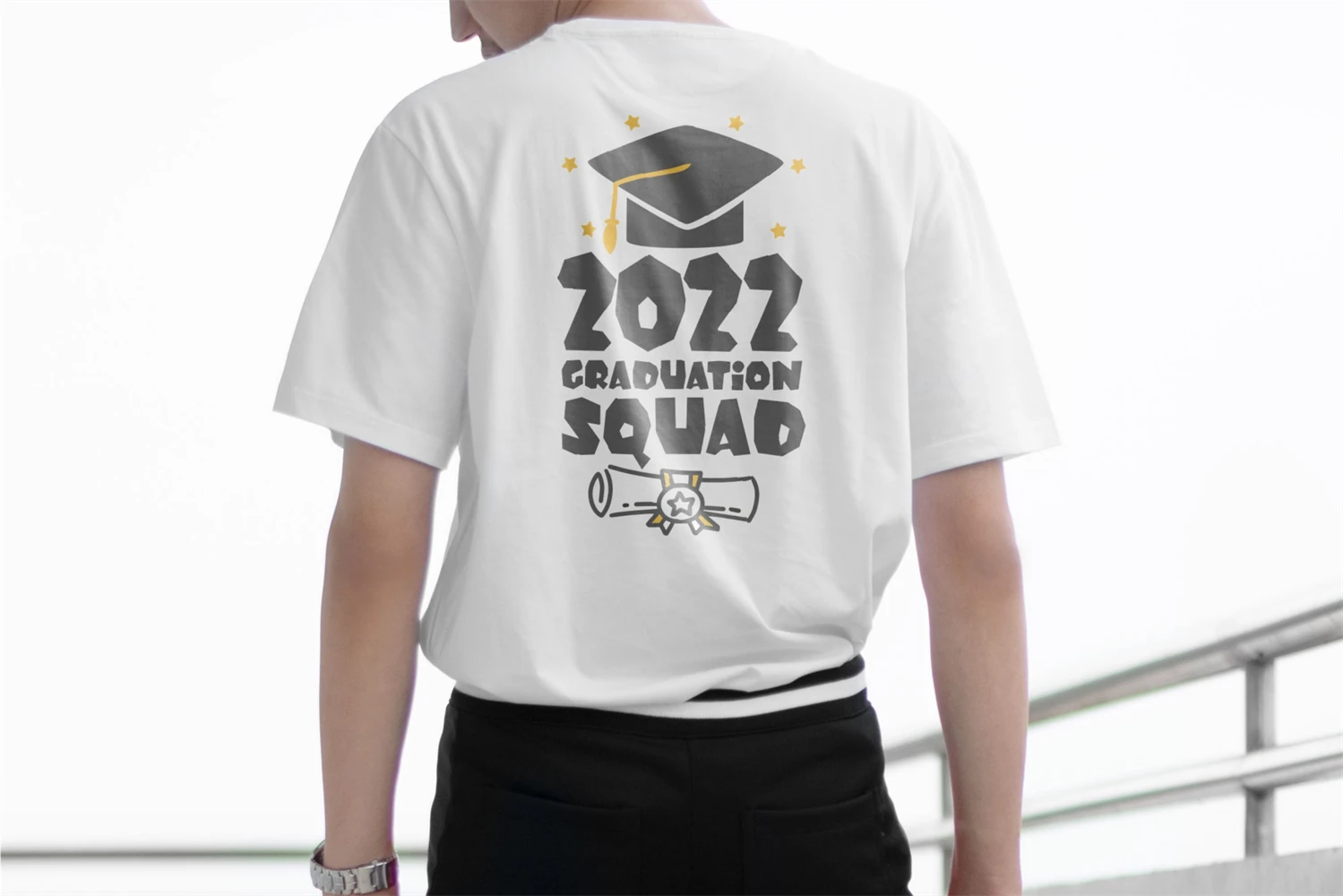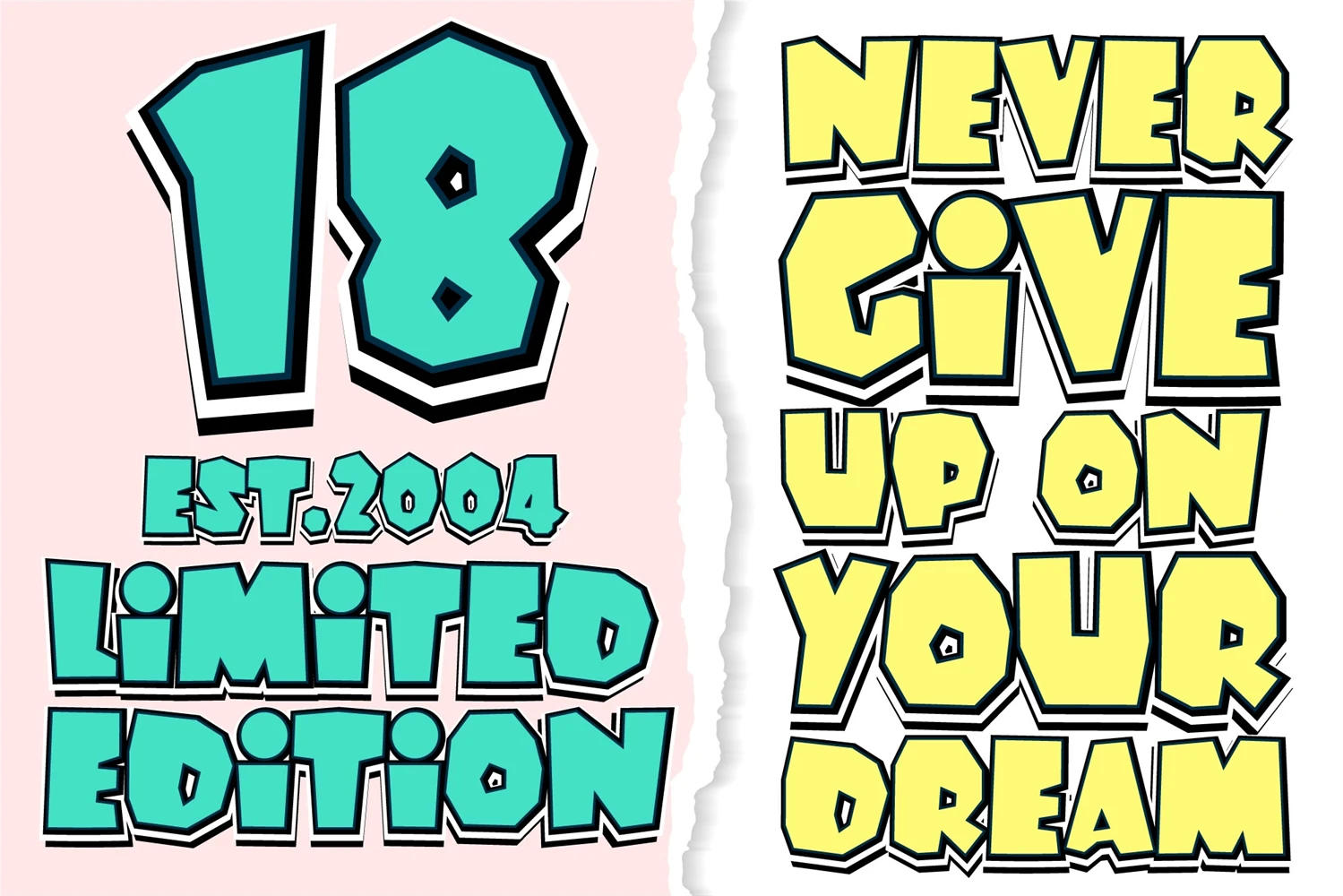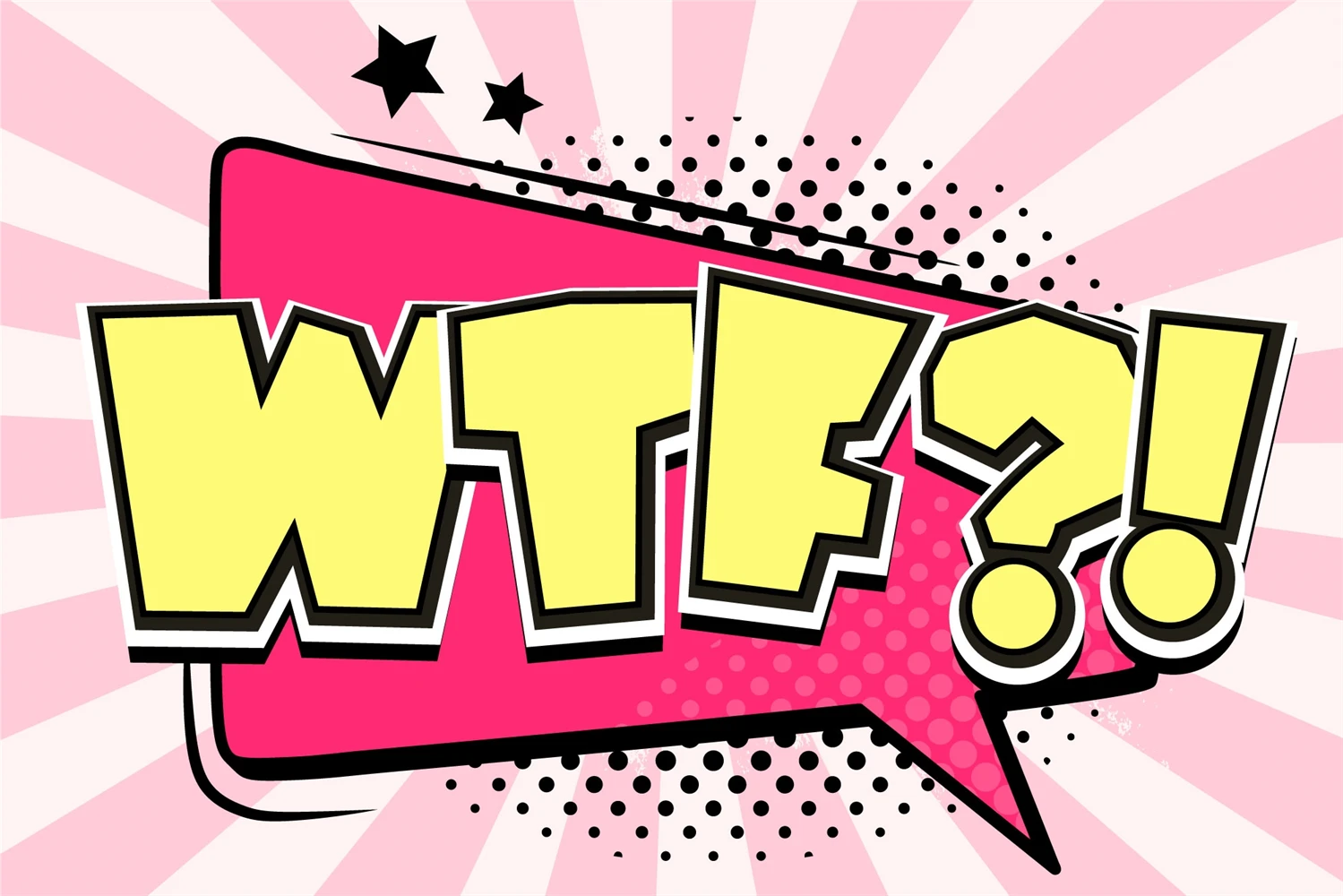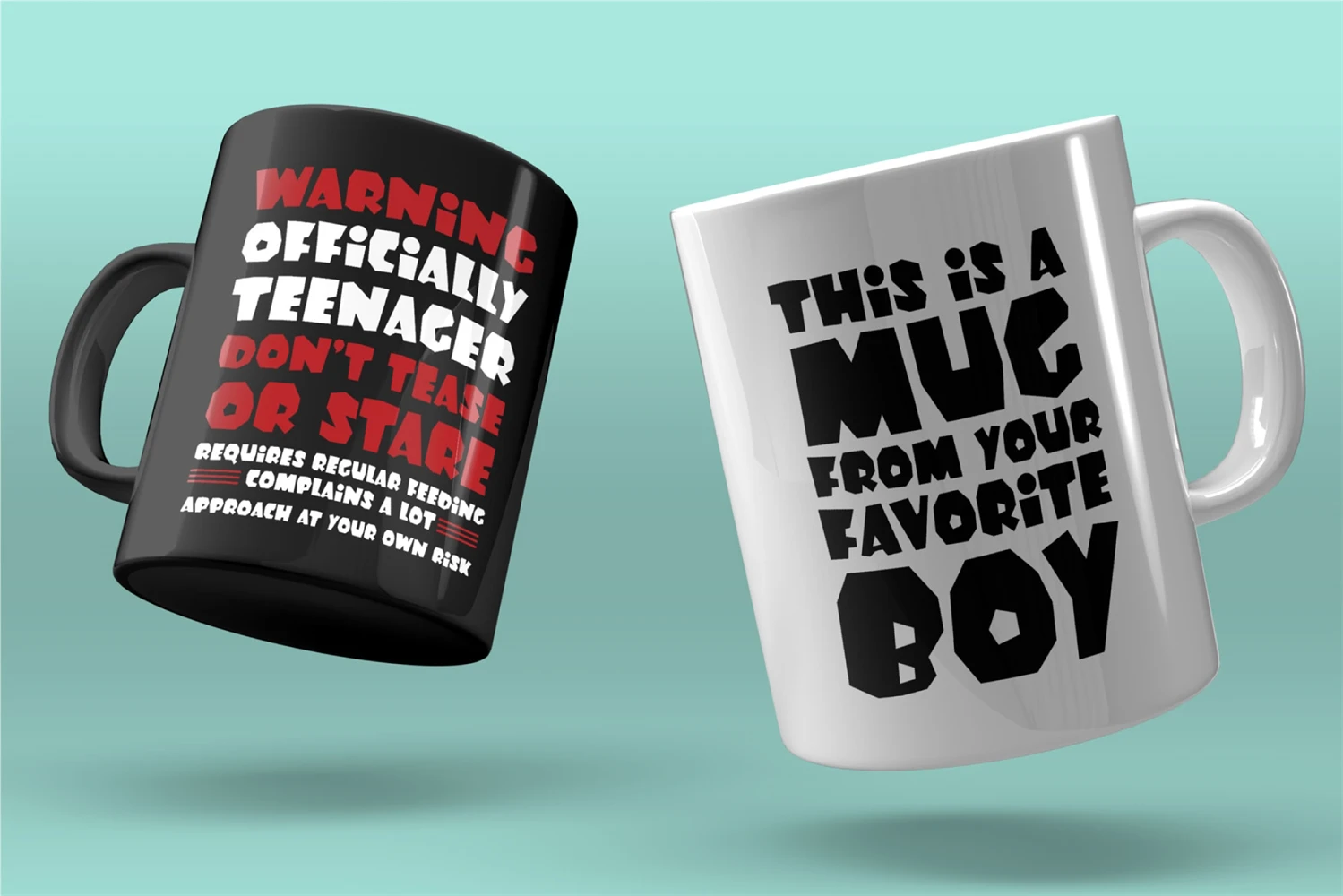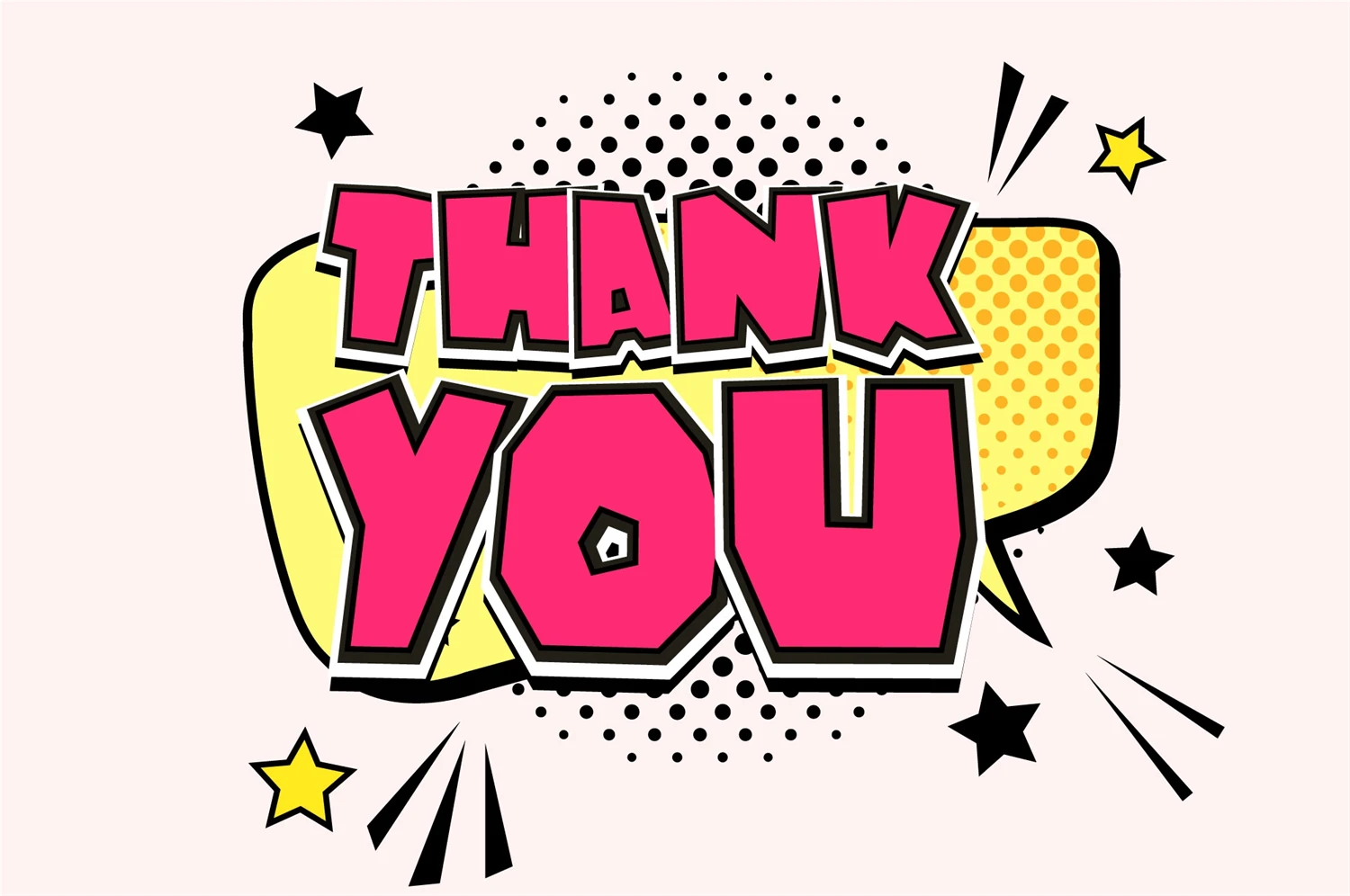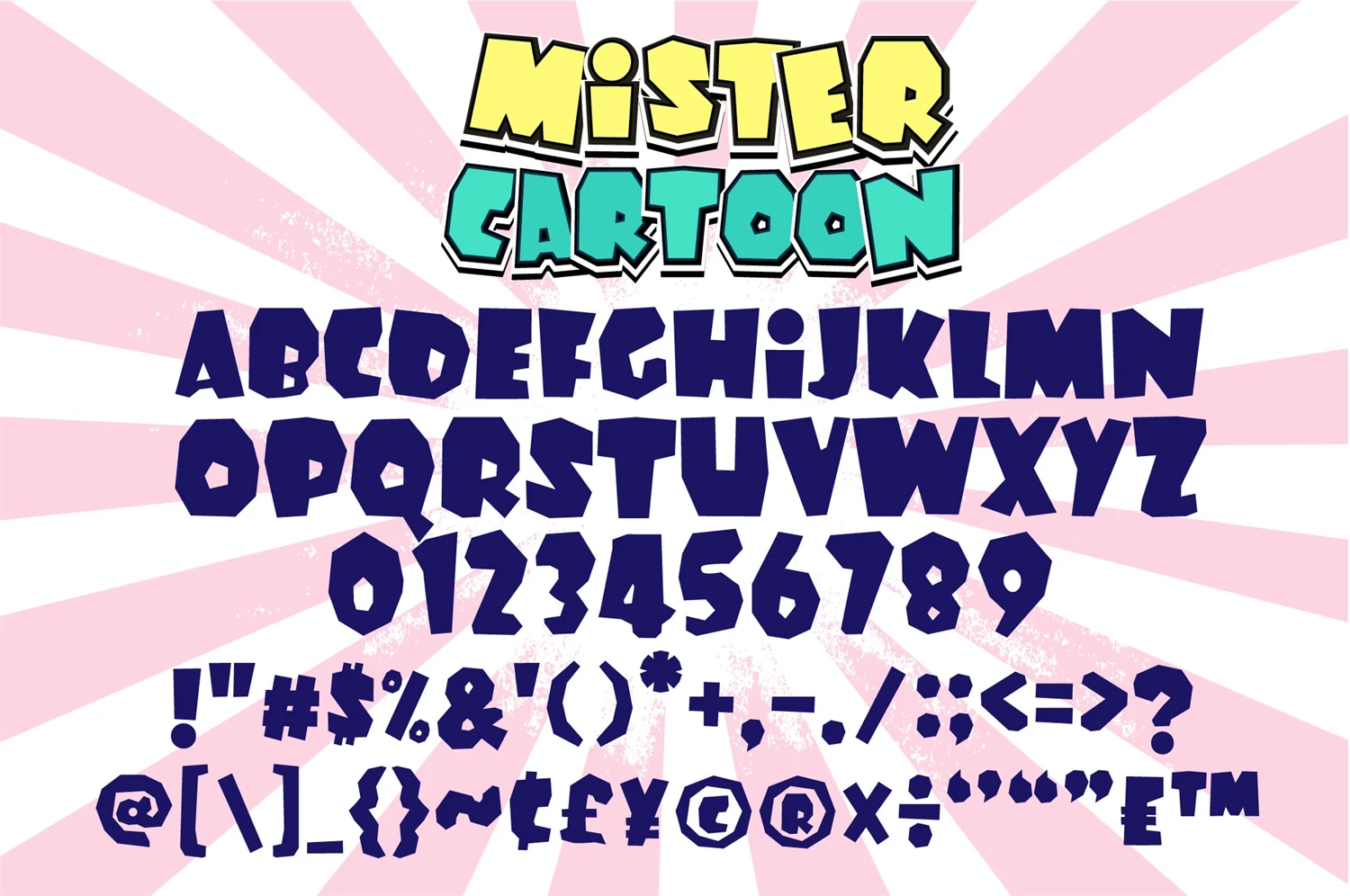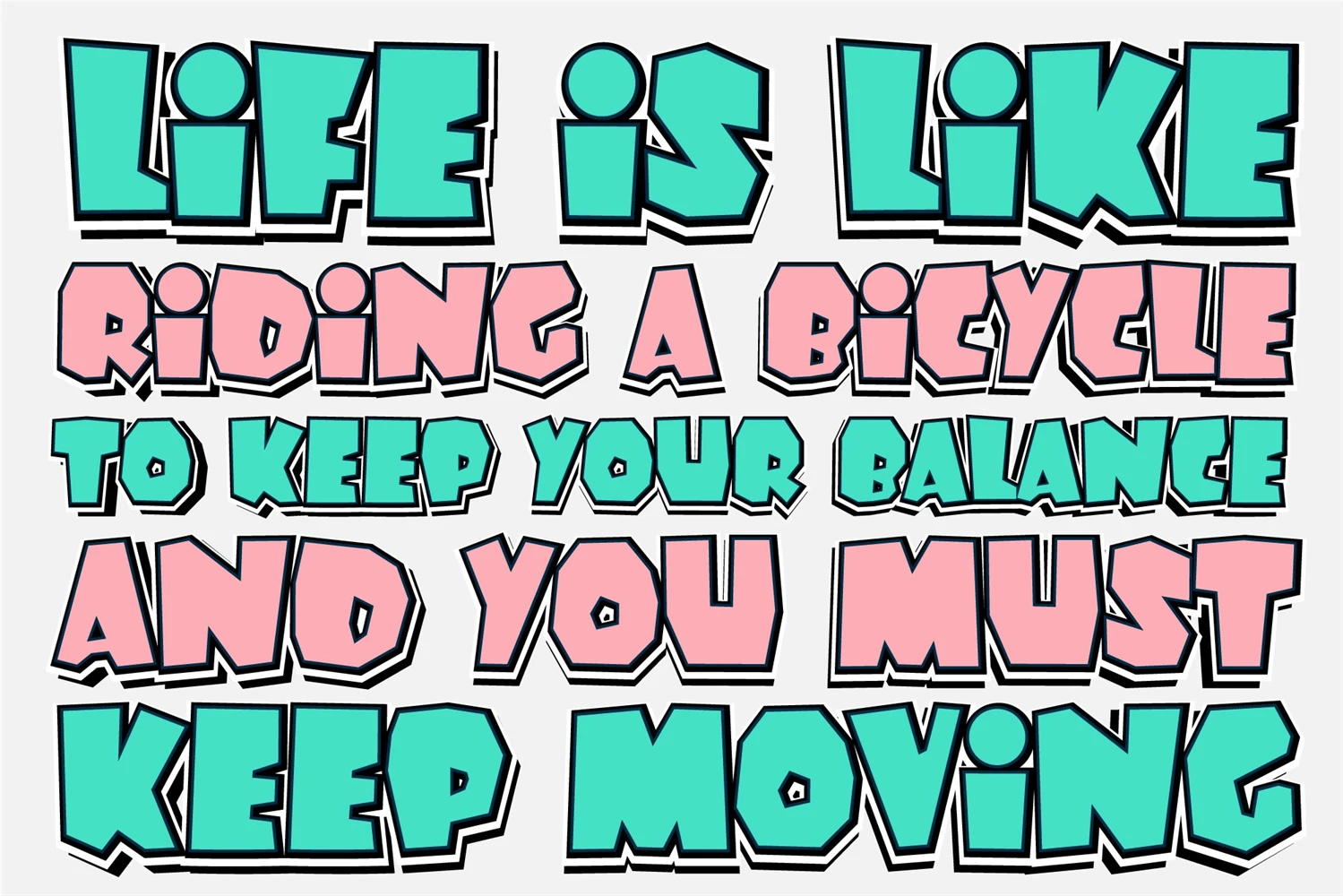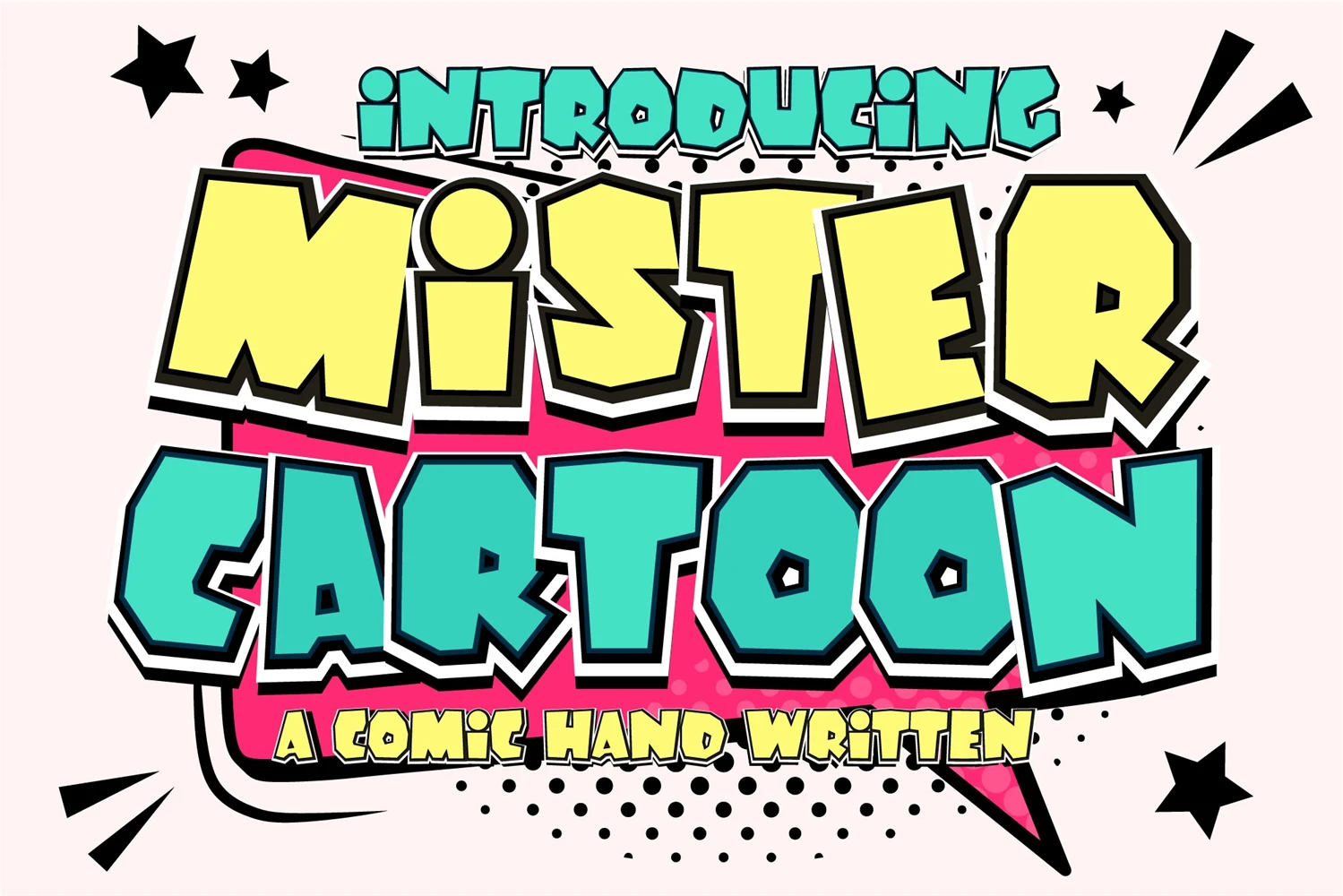
Mister Cartoon Font is a fun and thick lettered display font that exudes confidence, authenticity, and charm. This delightful typeface is perfect for conveying any message with a playful and lighthearted tone. Whether you're designing cartoons, magazine covers, games, or any project that needs a jolly touch, Mister Cartoon Font will bring joy and character to your creations. Its bold and expressive design will make your text pop, leaving a memorable impression on your audience. Let your imagination run wild and infuse your designs with the whimsical essence of Mister Cartoon Font!